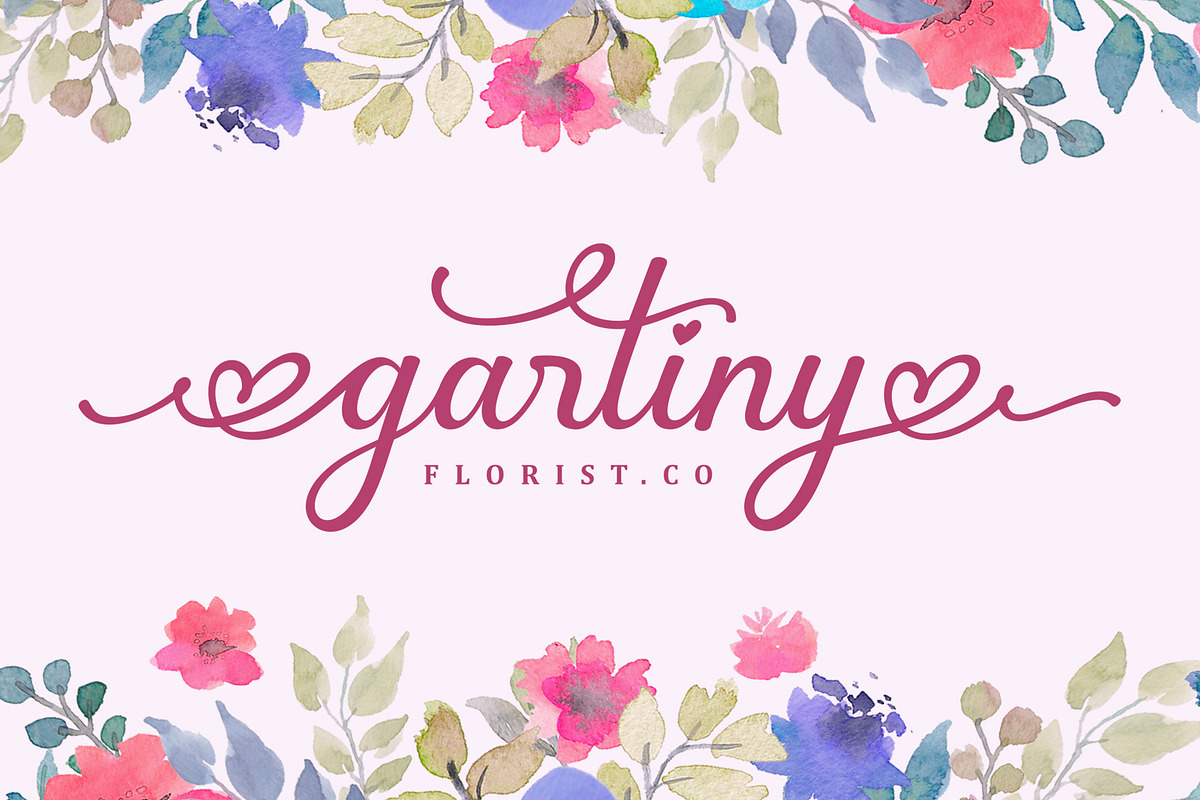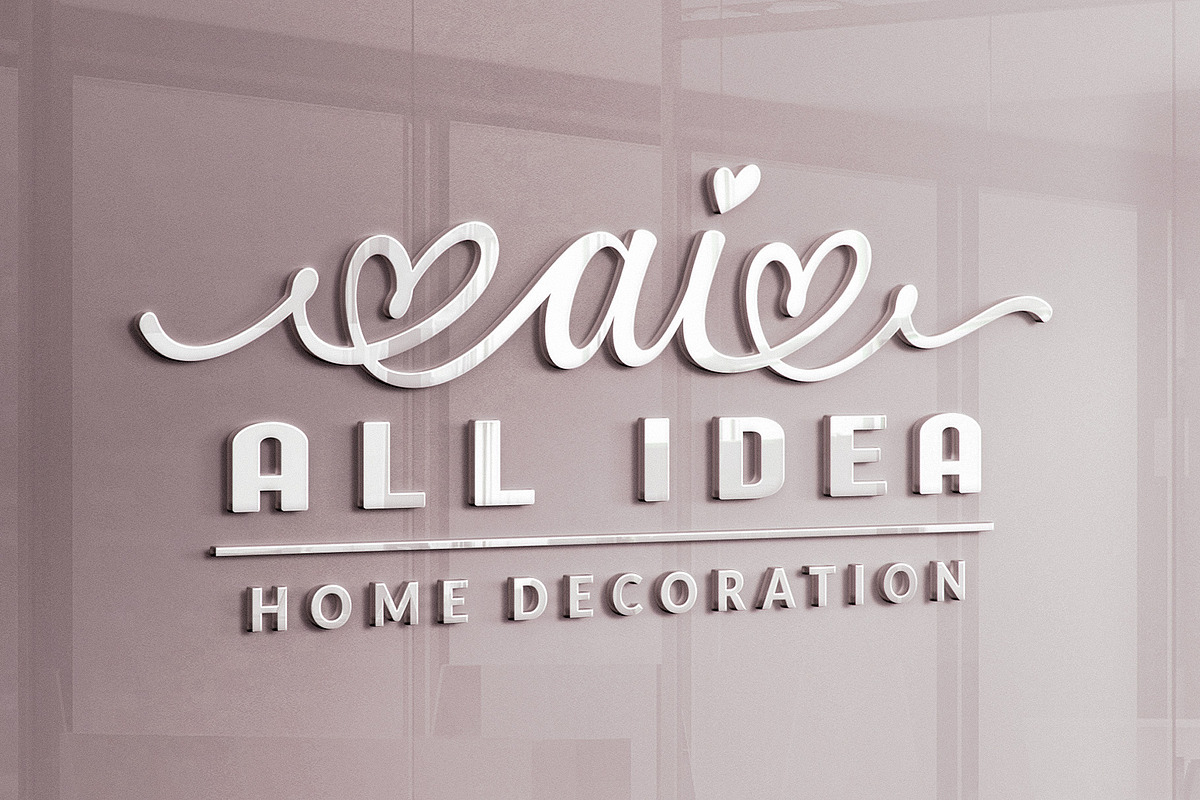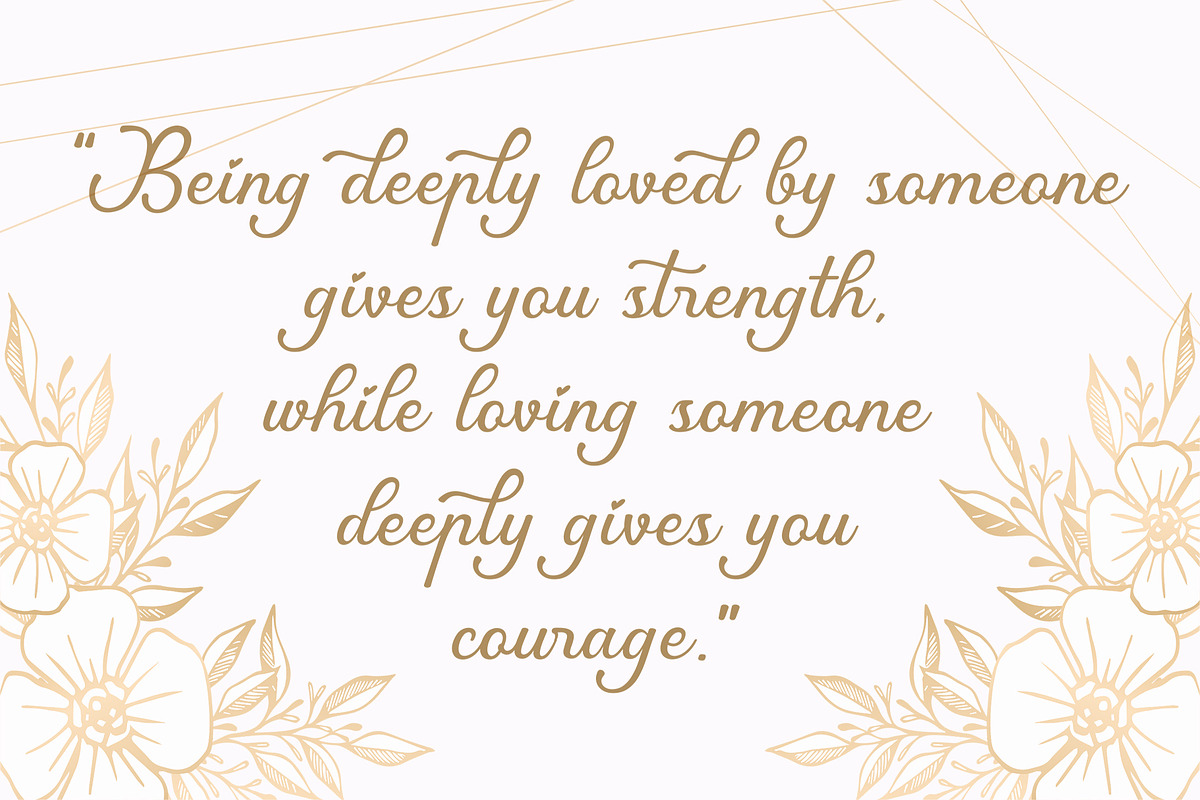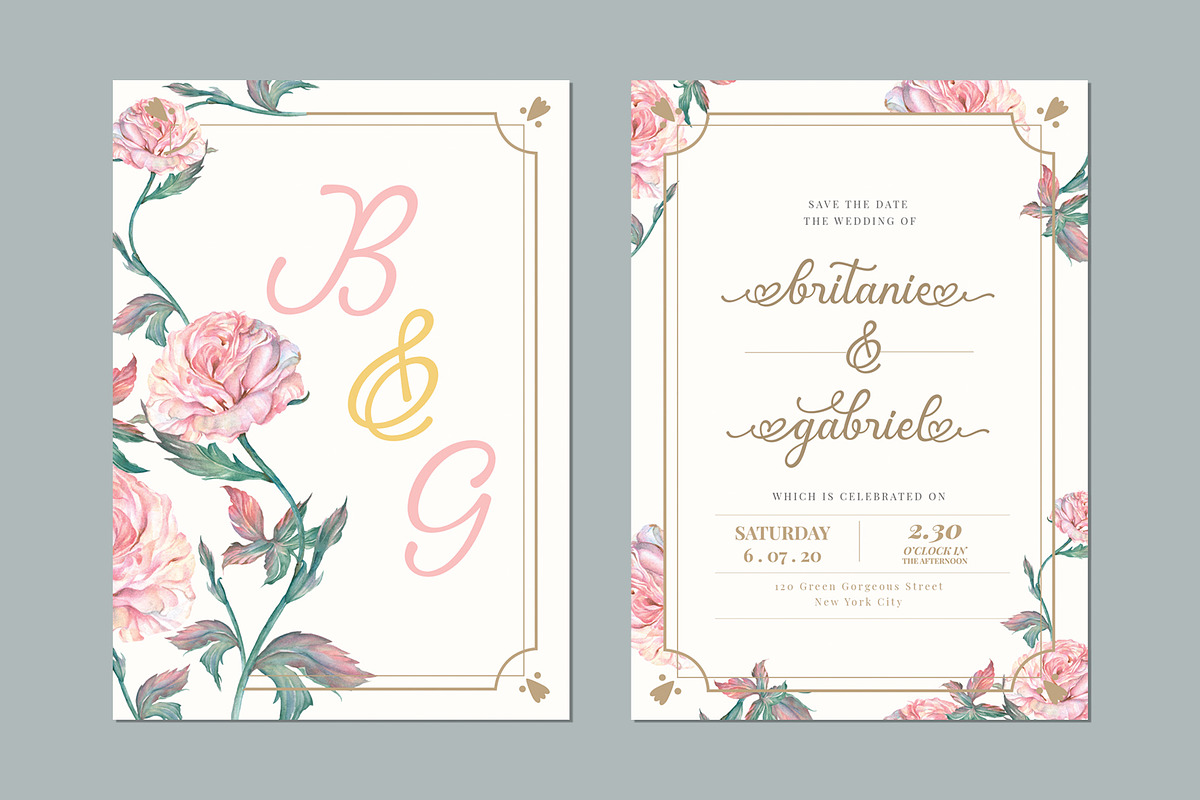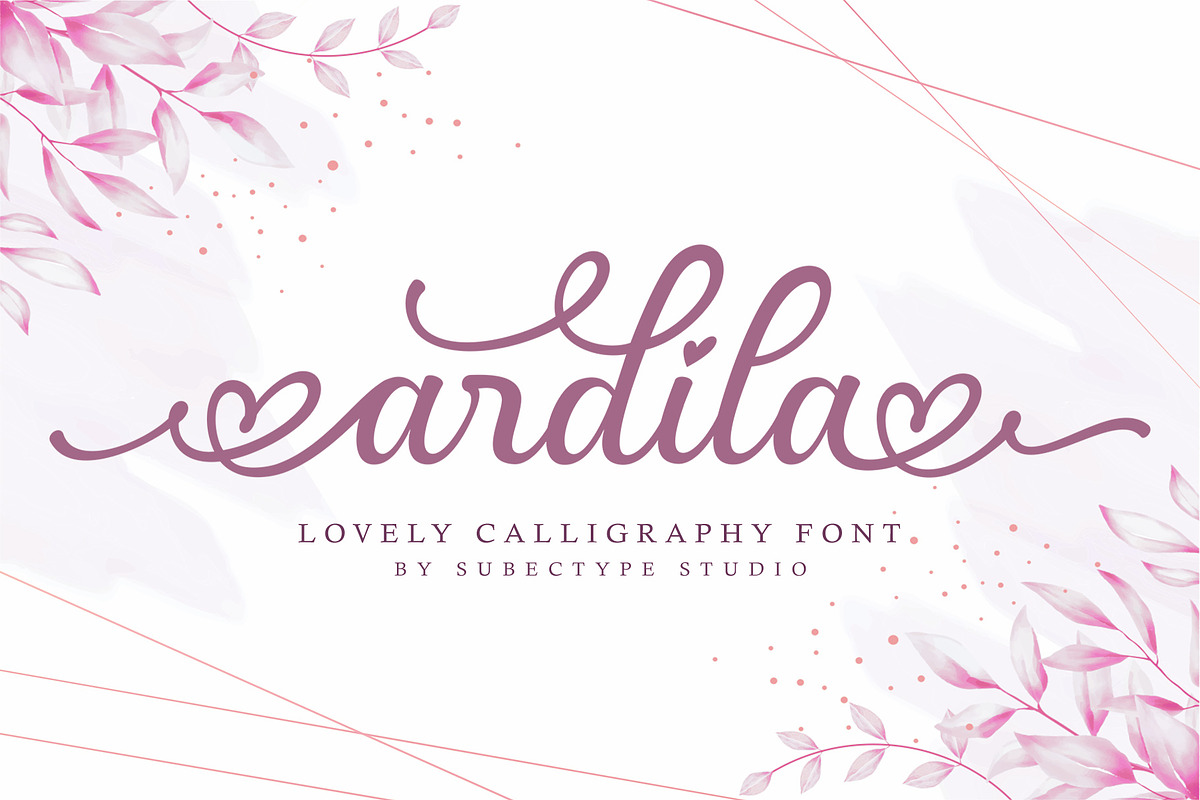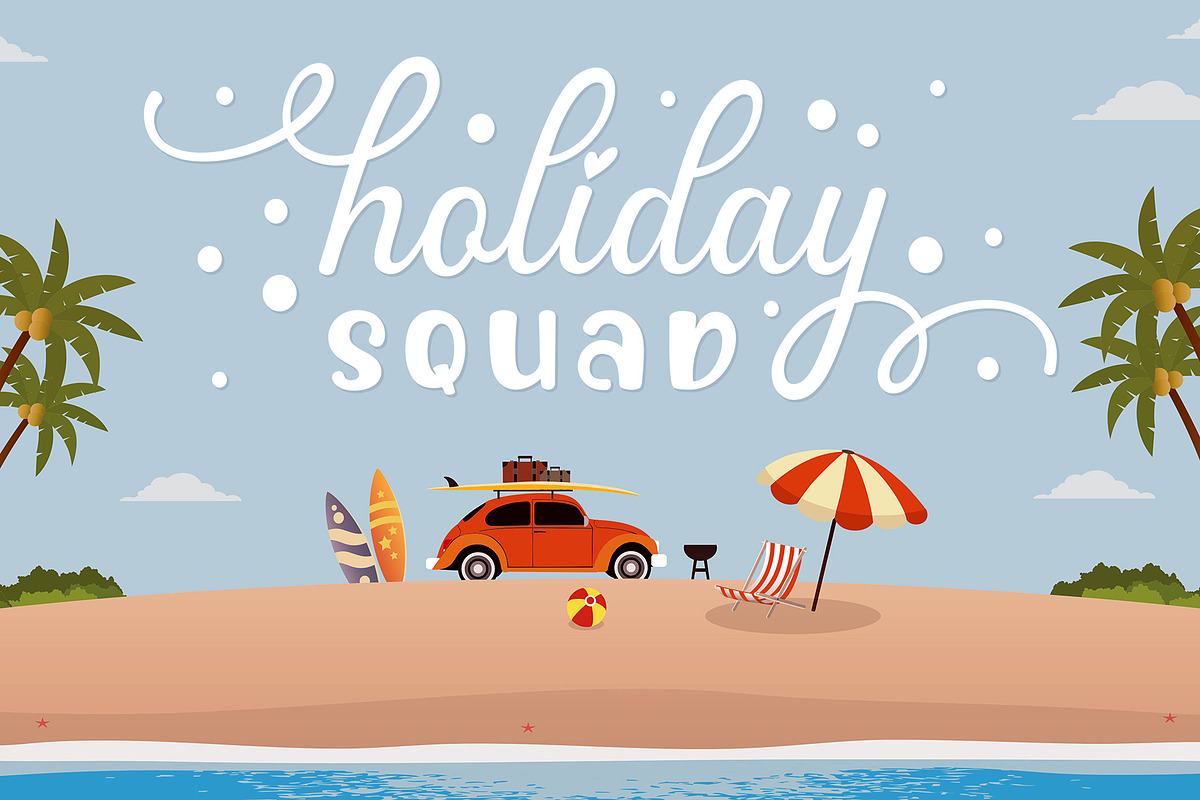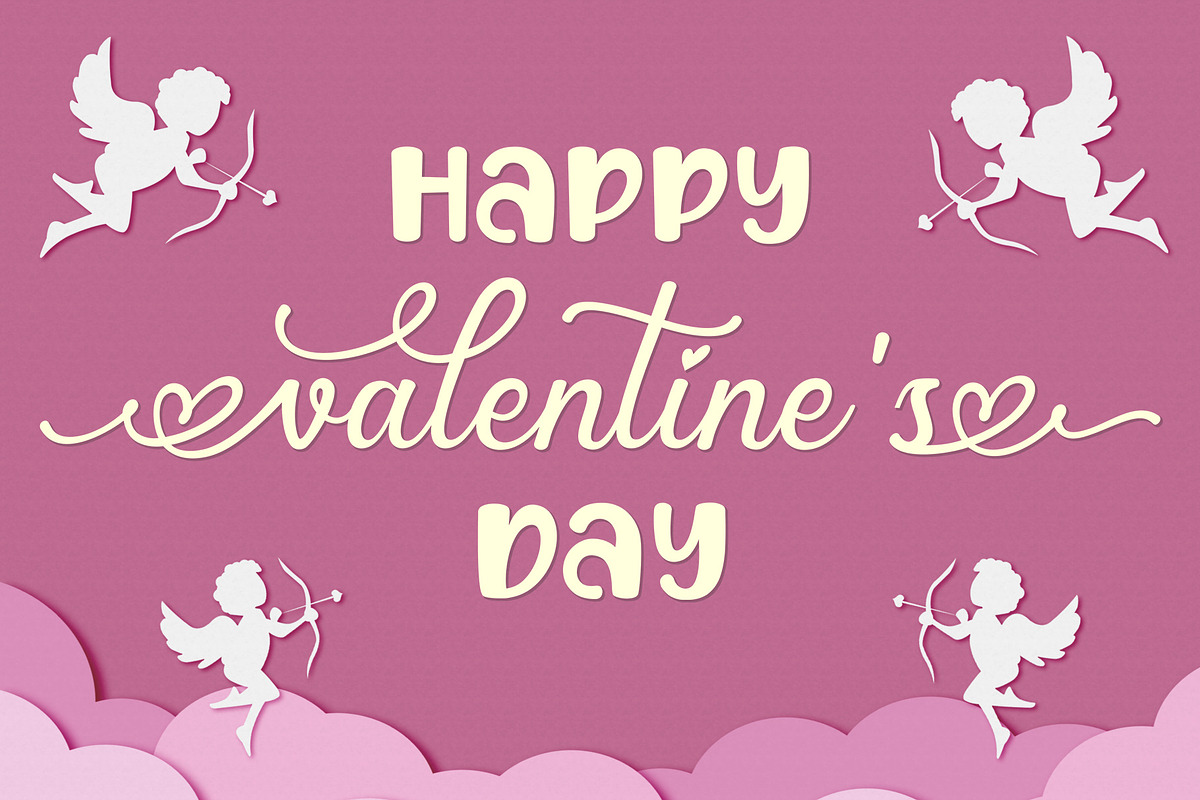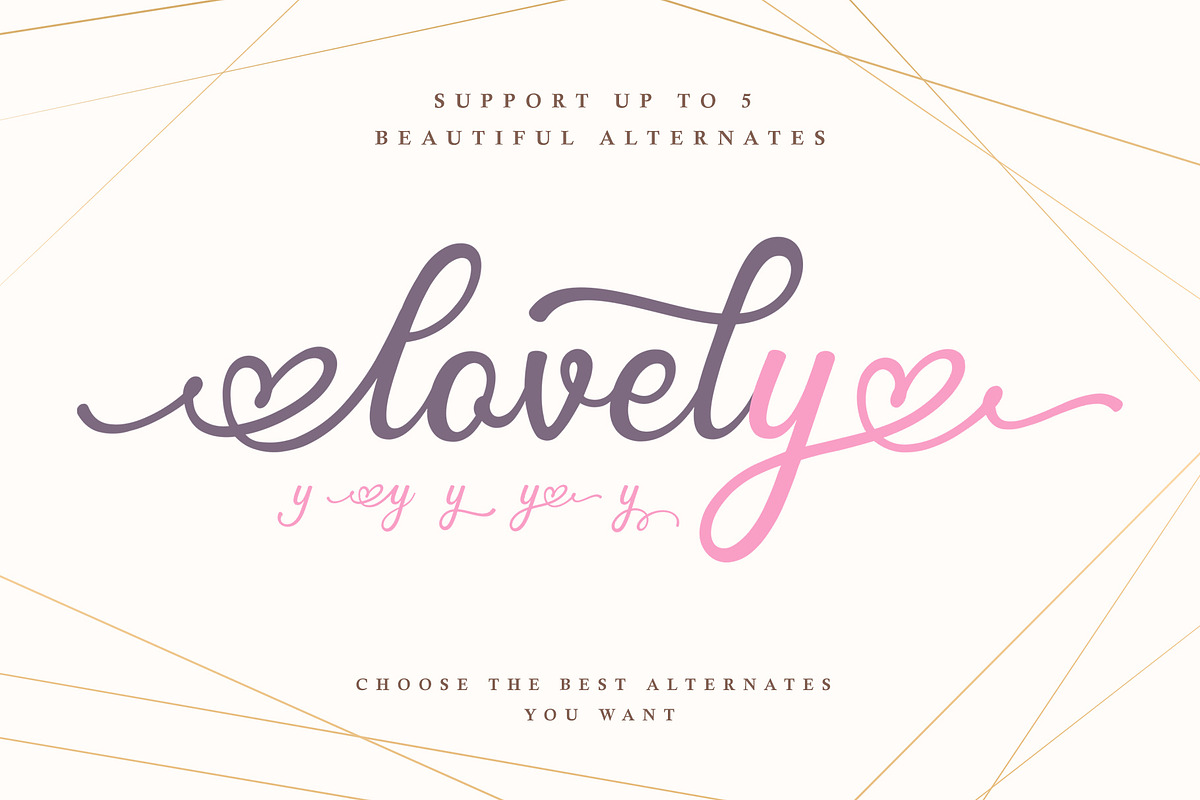
Ardila / Lovely Calligraphy Font
Ardila is a lovely calligraphy font style. it is suitable for display fonts with love swash. equipped with lovely alternative letters for beginning and ending. and also "Up to 5 stylistic alternates" which makes this letter very beautiful and attractive.
This is suitable for logos, headline, clothing, branding, quotes, invitations, stationery, wedding design, album covers, business cards, clothing, magazines, posters, and more!